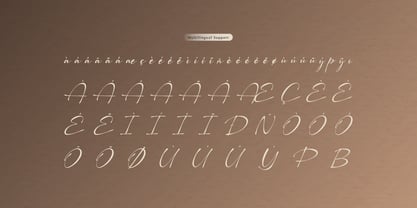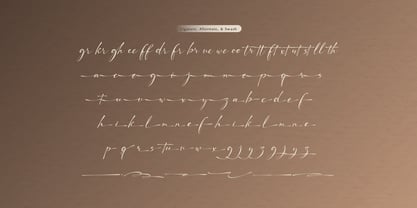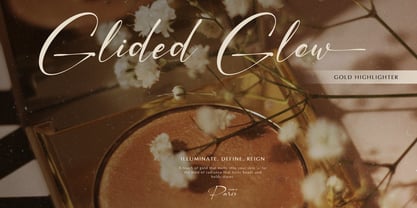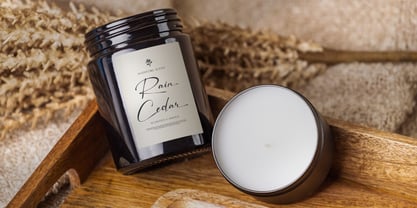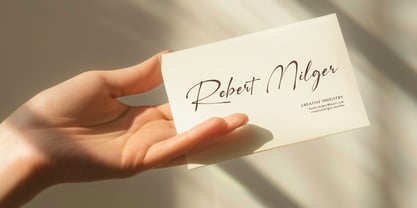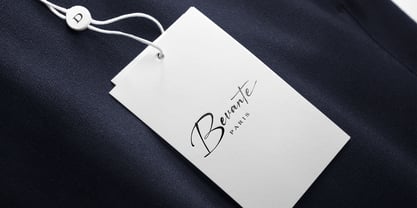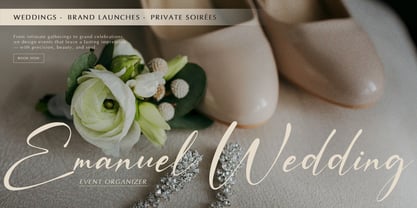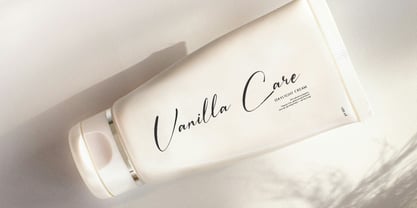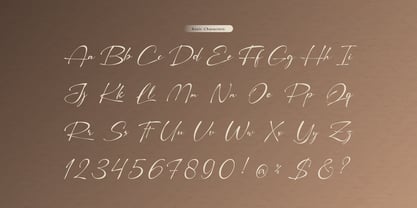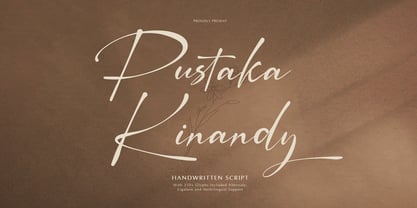
Pustaka Kinandy
The Pustaka Kinandy Font Family was designed by and published by Tini Fitriani. Pustaka Kinandy contains 2 styles and family package options. More about this family
Pustaka Kinandy | Handwritten Script, from Gracetypestudio, suitable for any projects such as: logos, branding projects, homeware designs, product packaging, mugs, quotes, posters, shopping bags, t-shirts, book covers, name card, invitation cards, greeting cards, label, photography, watermark, special events, and all your other lovely projects that need a Handwritten Script taste.
• Regular and Italic
• Alternate and Ligature
• Fonts include multilingual support